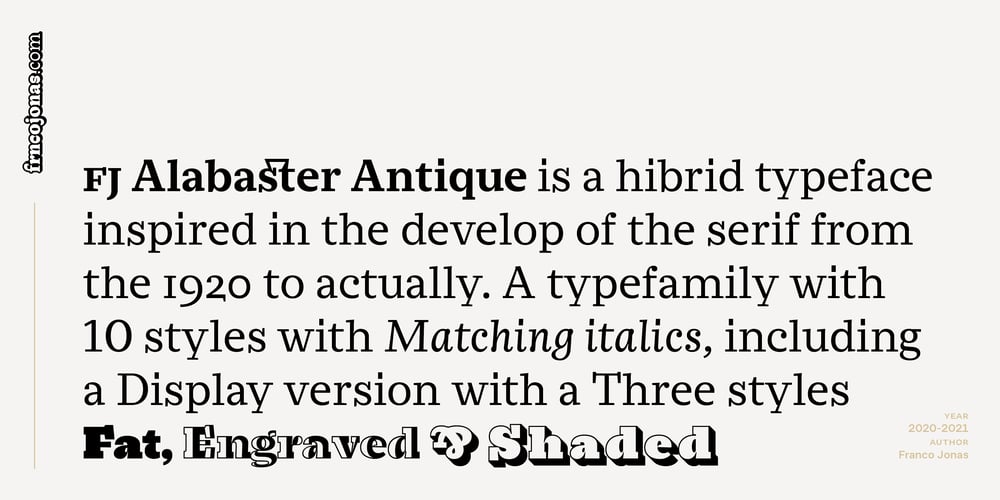
Alabaster Antique FJ
Alabaster Antique FJ font
Alabaster Antique FJ Font Family was designed by Franco Jonas and published by Frncojonastype. Alabaster Antique FJ contains 10 styles and family package options. fj Alabaster Antique™ is a hybrid typefamily with a 10 styles inspired of the develop and exploration of “serif” since the first half in XIX century, envolves a special influence of the slab humanist typefaces, —with a calligraphy flavor in his Italic— with the goal to generate a contrast in to texts sheets. Has a three display versions based in the universe of “woodtypes” to deliver a “unity” in all typeset, like his versions fj Alabaster Antique™ Display, Engraved & Shaded.Include Small Caps, Swashes, Modern and OldStyles figures to decimal notation that envolve to fj Alabaster Antique™ in a ideal typeface for first and second lecture in the most of the visual communication pieces.•To exclusive licenses and to follow the develop of this project please visit frncojonas.comLearn about upcoming releases, work in progress and get to know us better!WB: frncojonas.comBE: beh.net/frncojonasTW: @frncojonasING: @frnco.jonas